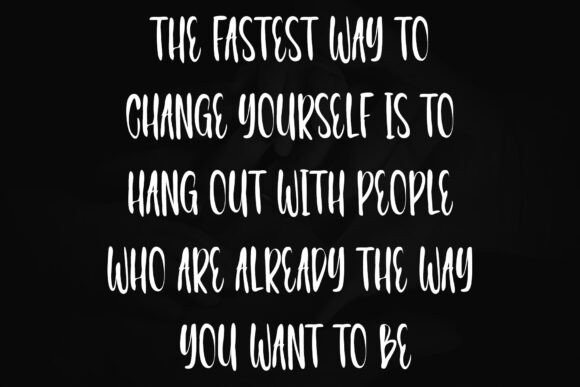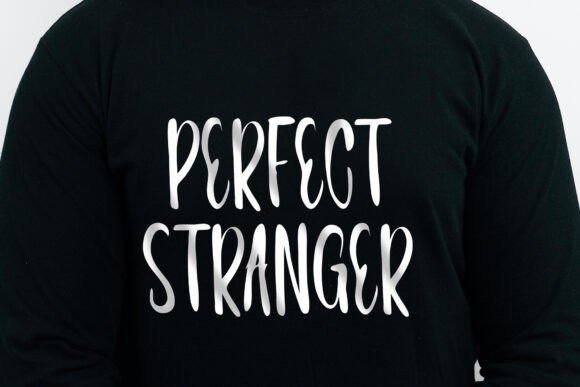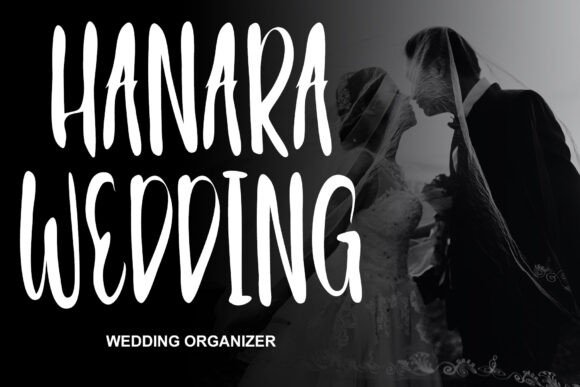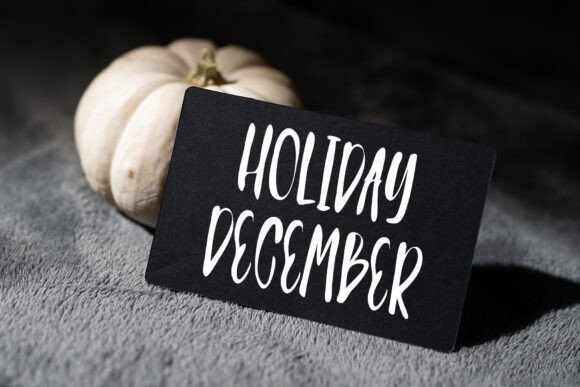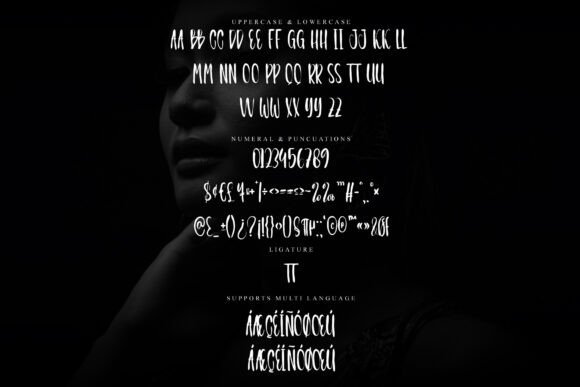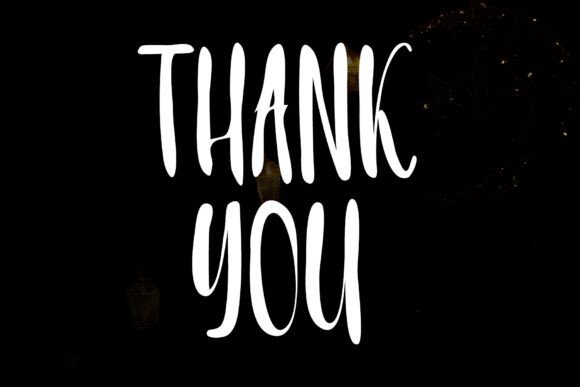
Bulwark Font: The Perfect Choice for Cheerful Designs
Are you looking for a font that can add a touch of fun and quirkiness to your designs? Look no further than Bulwark Font! This display font is perfect for use on cheerful topics and is especially suitable for children’s themed designs, particularly when combined with bright colors.
What is Bulwark Font?
Bulwark Font is a unique and playful display font that is designed to make a statement. Its fun and quirky style makes it perfect for use on a variety of design projects, from children’s books and educational materials to posters, flyers, and more.
Key Features of Bulwark Font
- Fun and quirky style: Bulwark Font has a unique and playful style that is sure to grab attention.
- Perfect for children’s designs: The font’s cheerful and upbeat style makes it especially suitable for children’s themed designs.
- Highly versatile: Bulwark Font can be used on a variety of design projects, from posters and flyers to children’s books and educational materials.
- Easy to read: Despite its playful style, Bulwark Font is easy to read, making it perfect for use on designs that require a clear and concise message.
How to Use Bulwark Font
Bulwark Font is easy to use and can be incorporated into a variety of design projects. Here are a few ideas to get you started:
- Children’s books and educational materials: Bulwark Font is perfect for use on children’s books, educational materials, and other designs that require a fun and engaging style.
- Posters and flyers: The font’s bold and playful style makes it perfect for use on posters and flyers that require attention-grabbing headlines.
- Social media graphics: Bulwark Font can be used to create fun and engaging social media graphics that are sure to grab attention.
Tips for Pairing Bulwark Font with Other Design Elements
When using Bulwark Font, it’s essential to pair it with other design elements that complement its playful style. Here are a few tips to keep in mind:
- Use bright colors: Bulwark Font looks best when paired with bright and bold colors that match its playful style.
- Add fun graphics: Consider adding fun graphics and illustrations to your design to complement the font’s playful style.
- Keep it simple: Despite its playful style, Bulwark Font is easy to read. Keep your design simple and concise to ensure that your message gets across.
Bulwark Font is a fun and quirky display font that is perfect for use on cheerful topics. Its unique and playful style makes it especially suitable for children’s themed designs, particularly when combined with bright colors. With its highly versatile style and ease of use, Bulwark Font is a great choice for designers and crafters looking to add a touch of fun and quirkiness to their designs.
- What is Bulwark Font?: Bulwark Font is a fun and quirky display font perfect for use on cheerful topics.